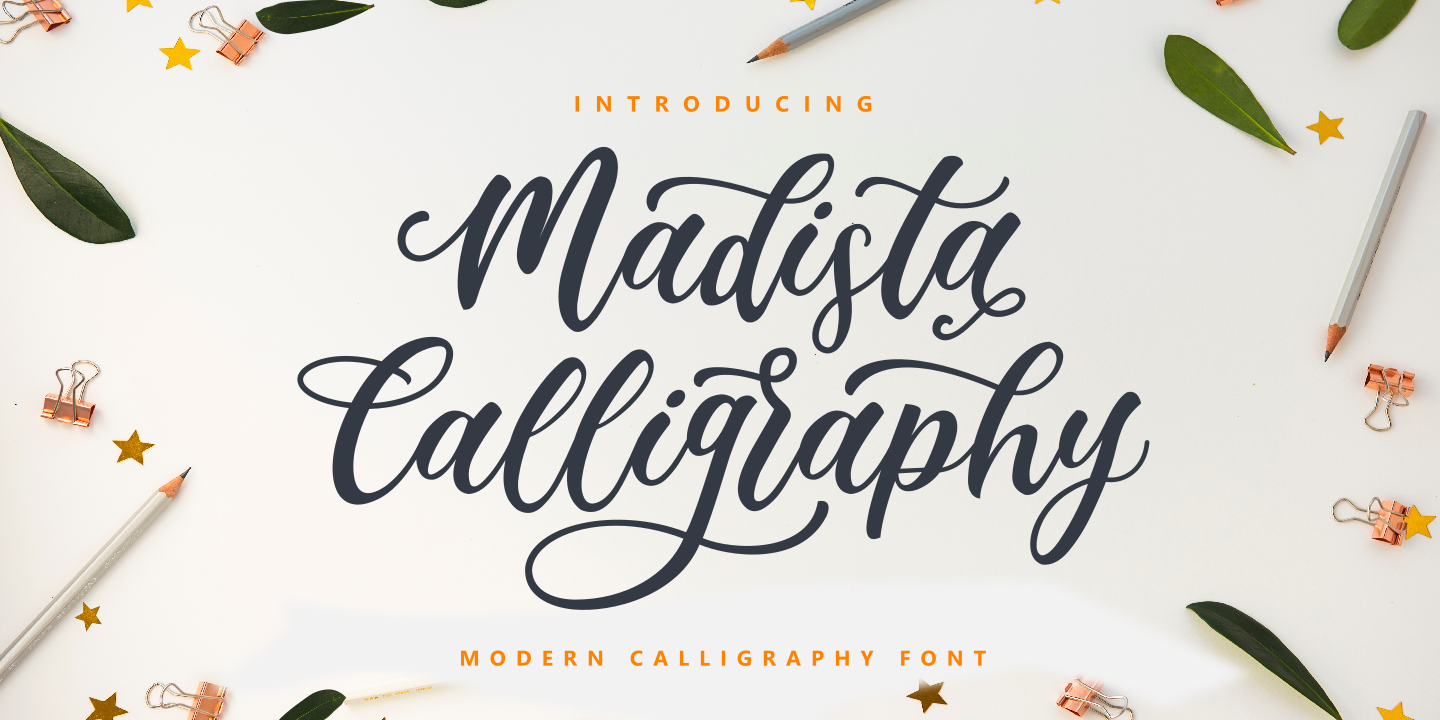
Discover the enchanting Madista Calligraphy Font Free Download, a modern script typeface by Zeenesia Studio that exudes elegance and romance. This font is perfect for creating a personalized, sophisticated aesthetic. However, please note that you must purchase this font for commercial use. For testing purposes, you can download it for free and explore its graceful style.
The Madista Calligraphy Font is ideal for various applications, such as designing stunning wedding invitations, crafting heartfelt greeting cards, creating elegant logos, or adding a romantic touch to social media posts and stationery. Its PUA-encoded glyphs and swashes make it a versatile choice for projects that demand a delicate, hand-crafted look.
Why is the Madista Calligraphy Font Free Download so exciting? Its flowing, connected strokes and over 50 extra characters, including alternates and ligatures, offer a classy, artistic flair. This font’s beautiful design, with multilingual support, ensures your creations stand out with timeless charm and modern sophistication.
The Madista Calligraphy Font family includes a single style with extensive glyph variations, providing flexibility for diverse design needs. Its rich character set allows you to experiment with swashes and alternates, perfect for both print and digital media.